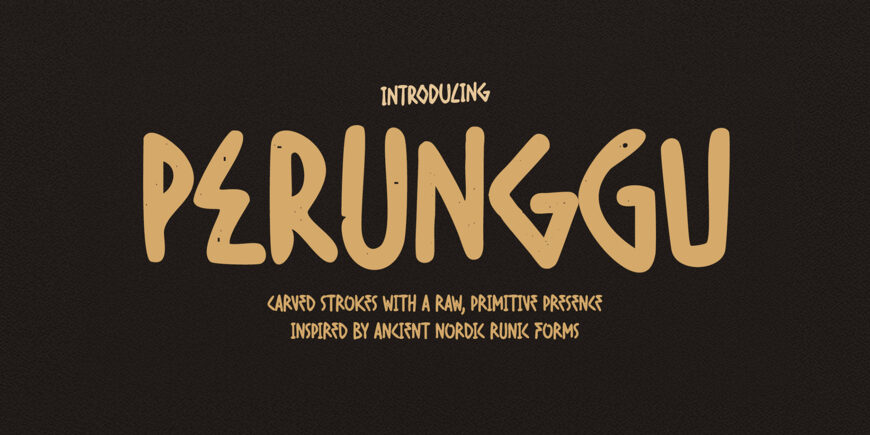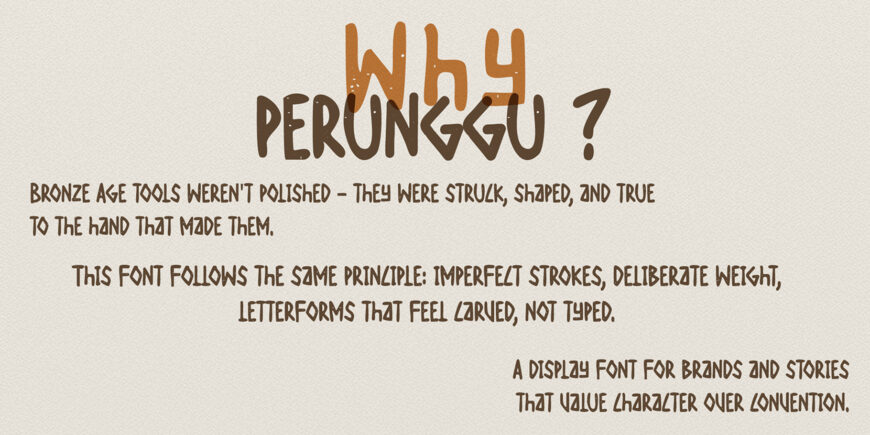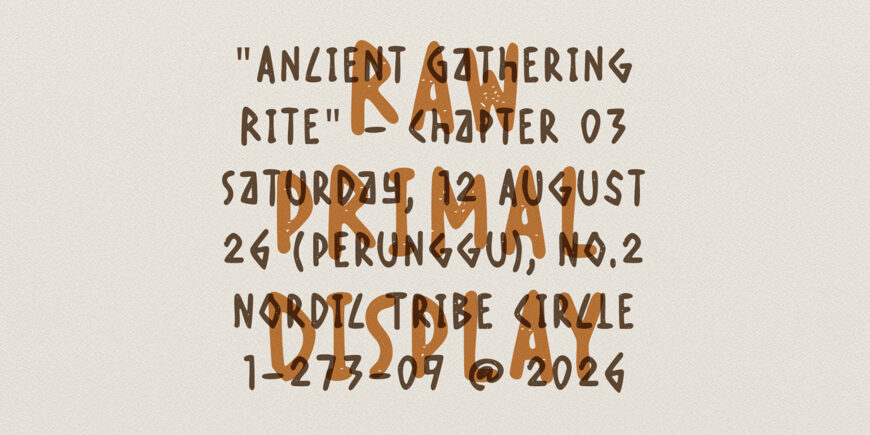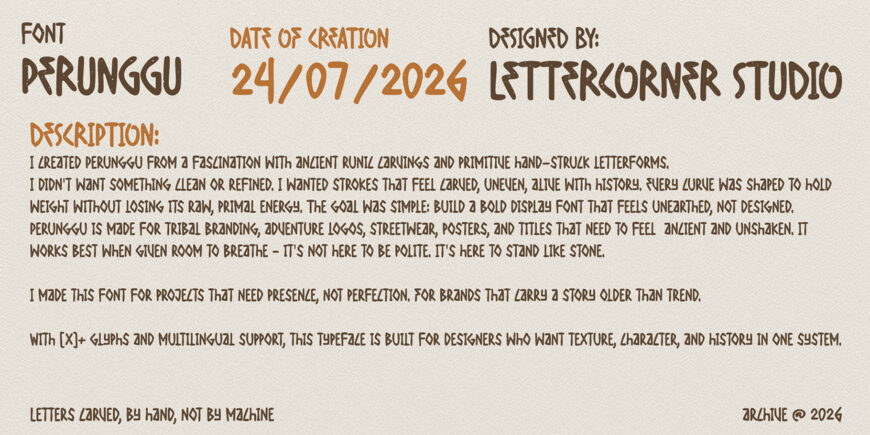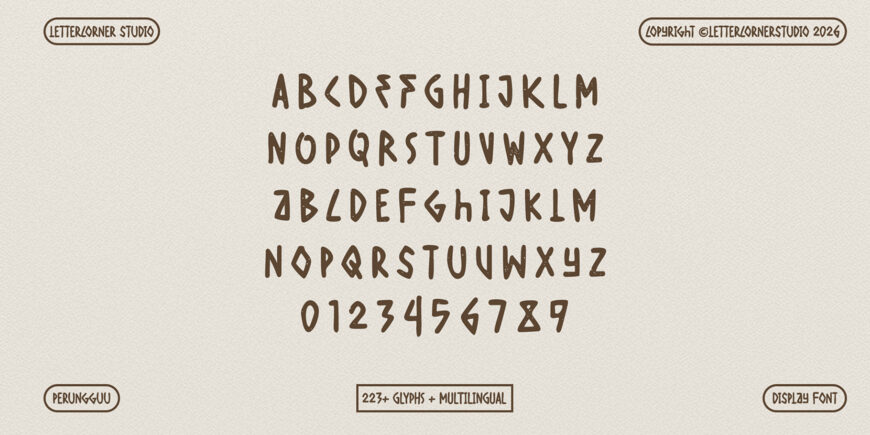
Perunggu Font
Perunggu is a bold display typeface inspired by ancient Nordic runes, primitive carvings, and hand-struck Bronze Age tools. Its uneven strokes, angular forms, and weathered details create a raw, historic presence that feels carved rather than polished.
Built for logos, posters, streetwear, titles, and adventurous branding, Perunggu gives every composition a distinctive tribal character—ideal for projects that value texture, storytelling, and individuality over convention.